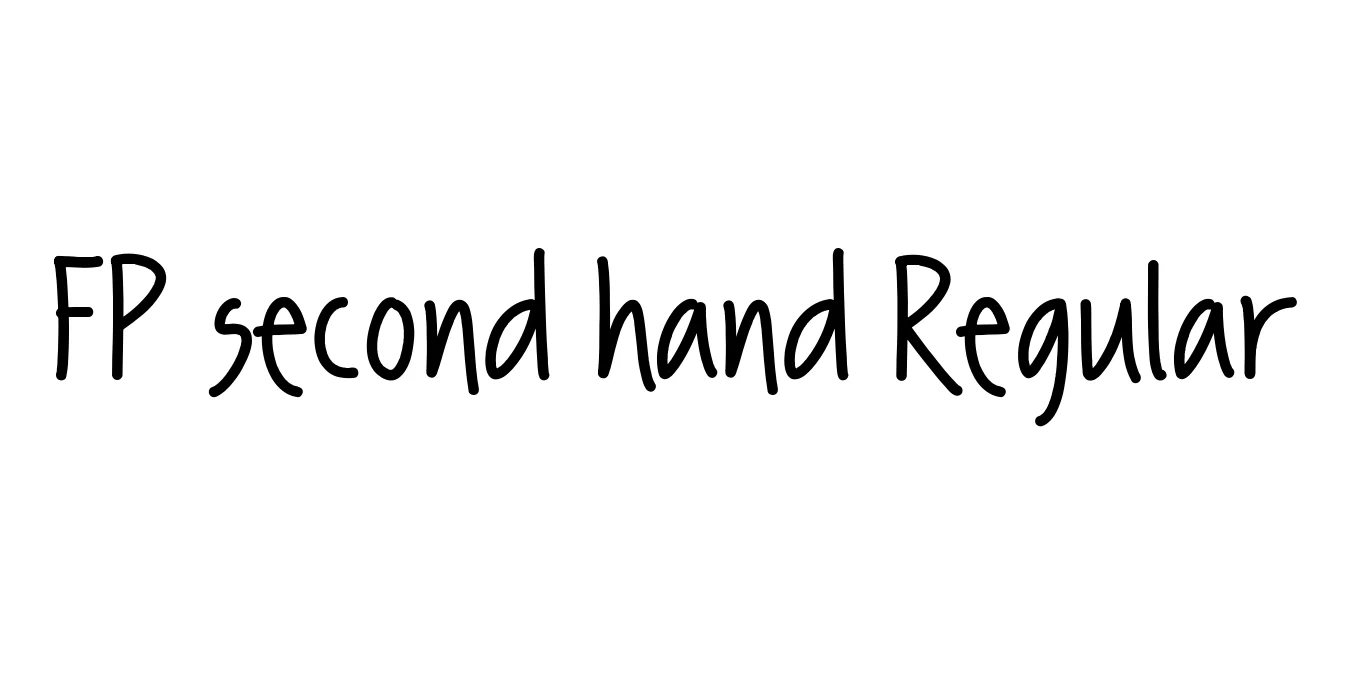
FP second hand Regular
Designed by Jason Smith (FontPeople)
FP Second Hand Regular is a contemporary brush script font designed to emulate the natural, fluid motion of hand-painted lettering. Created by the FontPeople foundry, this typeface strikes a perfect balance between casual charm and professional execution, making it a versatile tool for modern designers looking for an authentic human touch in their digital or print projects.
The font features a consistent weight with subtle imperfections that give it a vintage and organic feel, living up to its name by providing a crafted, second-hand aesthetic. Its legibility remains impressively high due to carefully balanced kerning and character shapes, making it suitable for both bold headlines and medium-length body text in creative layouts like invitations, artisanal packaging, and social media branding.
FP second hand Regular Best Uses
Creating authentic and personal identities for lifestyle and boutique brands.
Lending a handmade and rustic feel to artisanal or eco-friendly product labels.
Crafting eye-catching quotes, stories, and engaging digital content.
Adding a humanistic and friendly touch to flyers, posters, and event invitations.